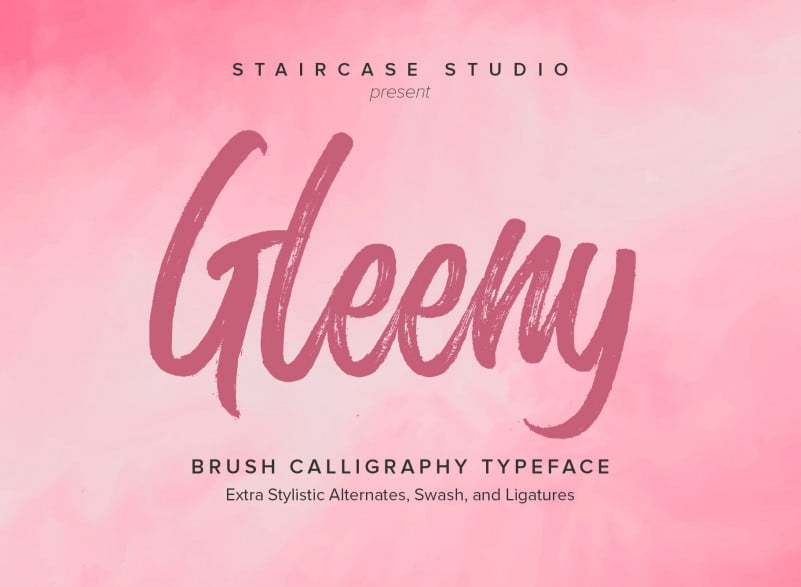
Glenny Brush Font
Glenny Font is a textured marker typeface with rough edges and dozens of ligatures that give it a true brush handwritten feel. Glenny Font is unique and modern brush style makes it the perfect font for adding a handwritten touch to social media posts, menus, weddings, invitations, packaging, or whatever project you can think of!
Glenny Font includes standard upper and lowercase characters, numerals and punctuation. This font is free for PERSONAL USE.